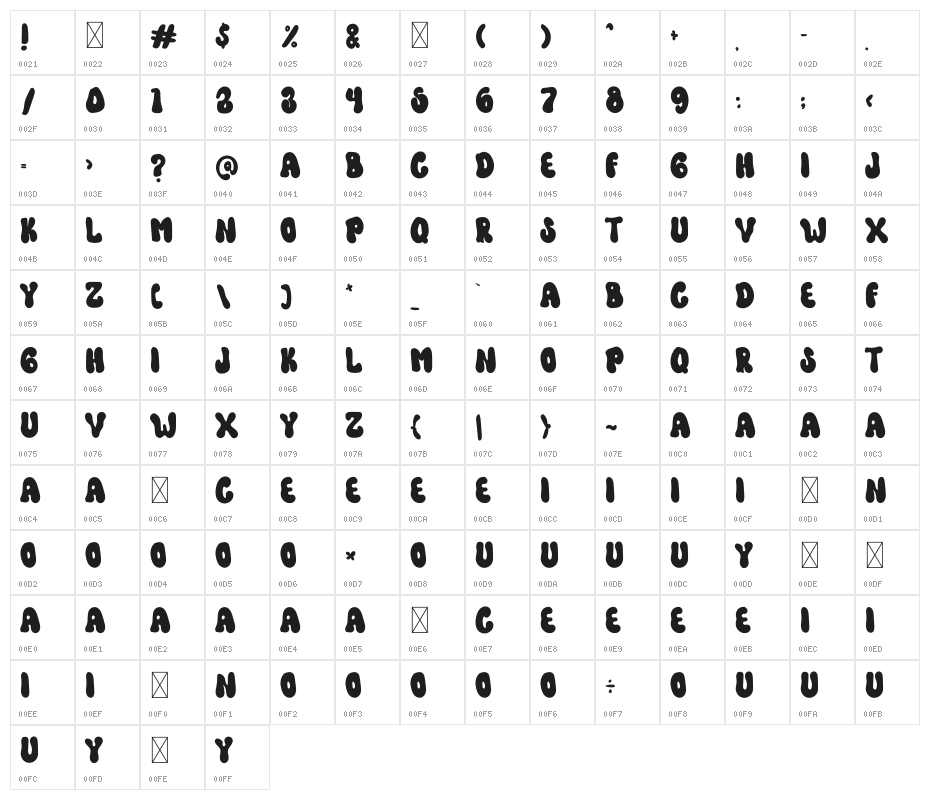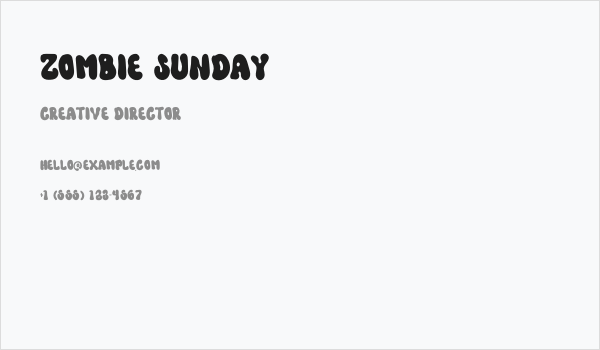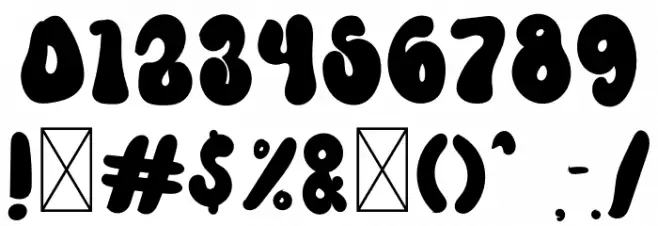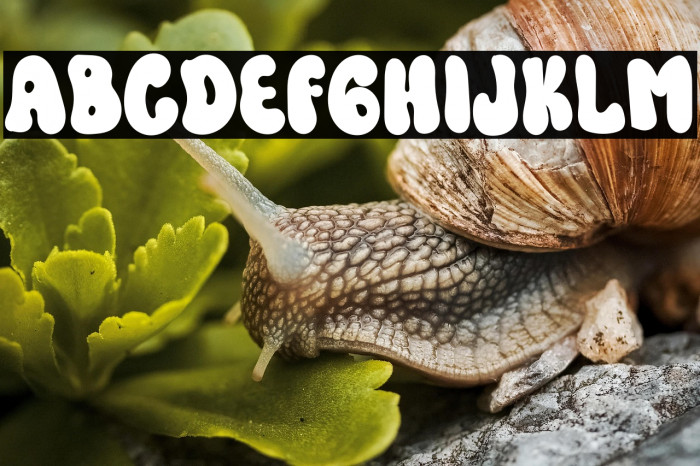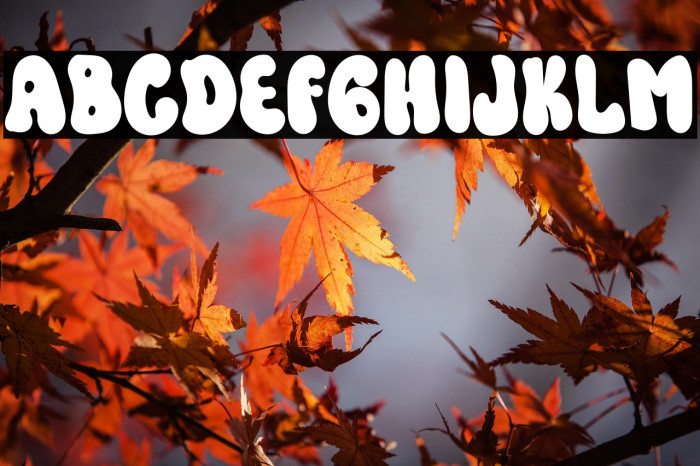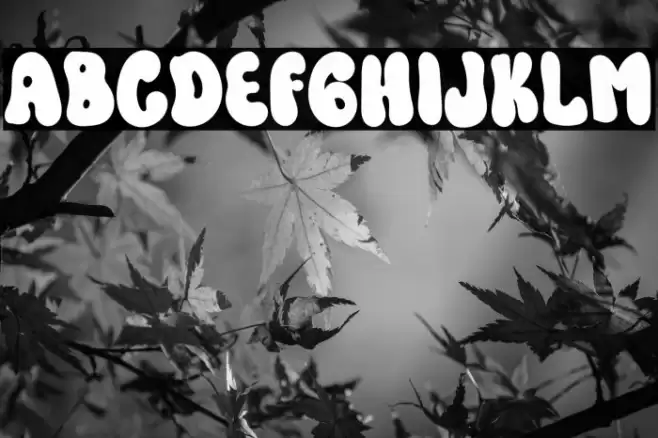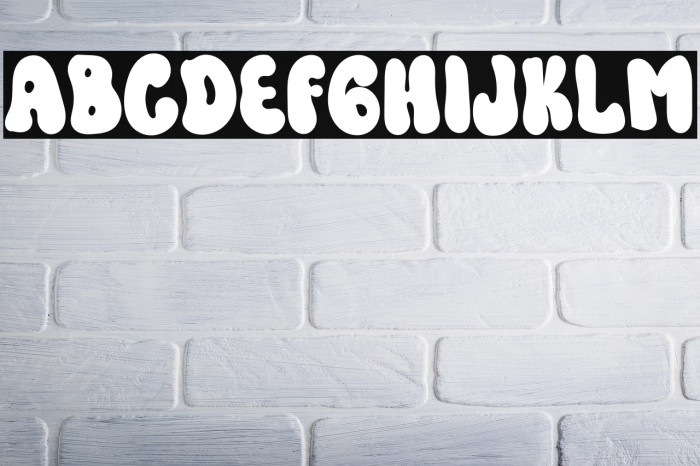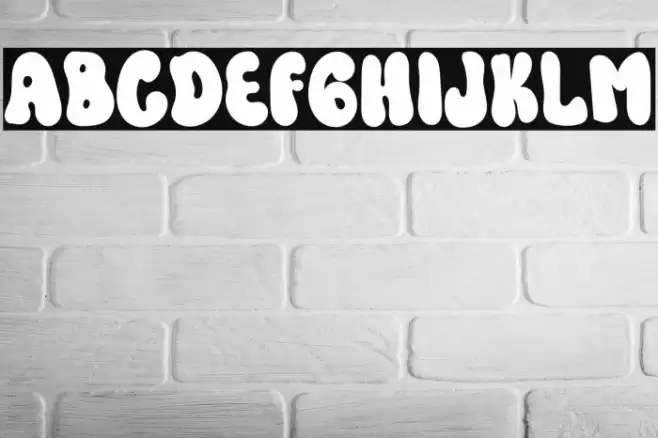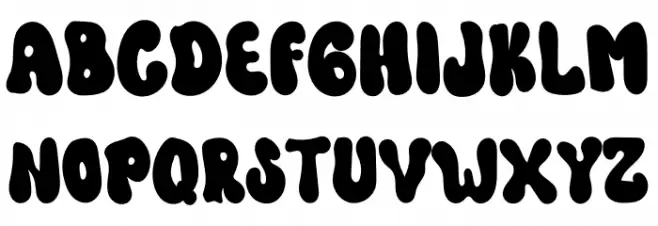
Zombie Sunday Font
| Gesamtstil | Playful, Retro, Decorative |
| Vorgeschlagene Projekte | Ideal for children's books, playful branding, party invitations, or any project needing a fun and bold typeface. |